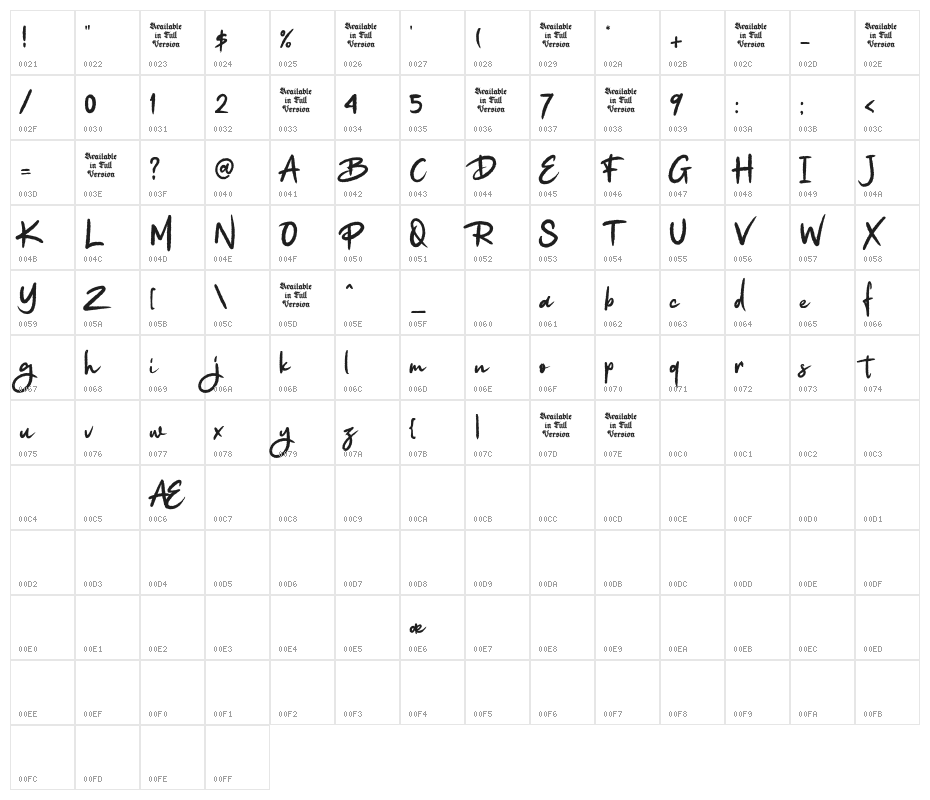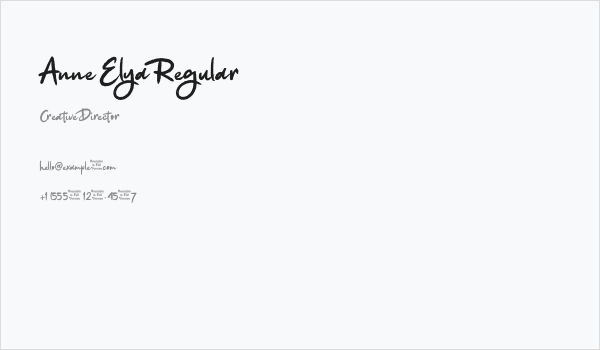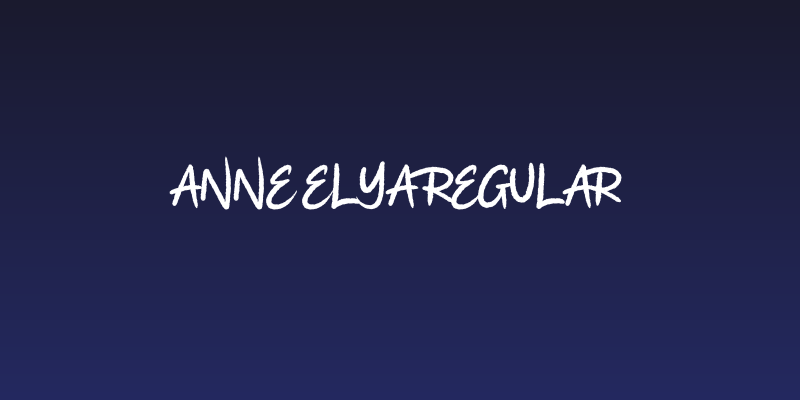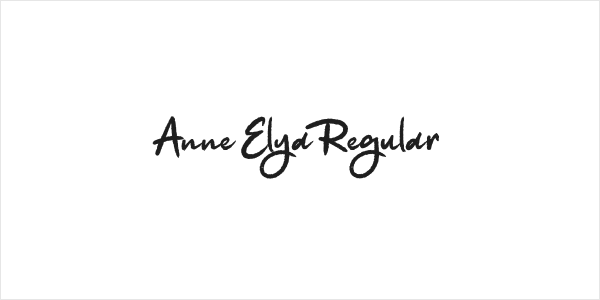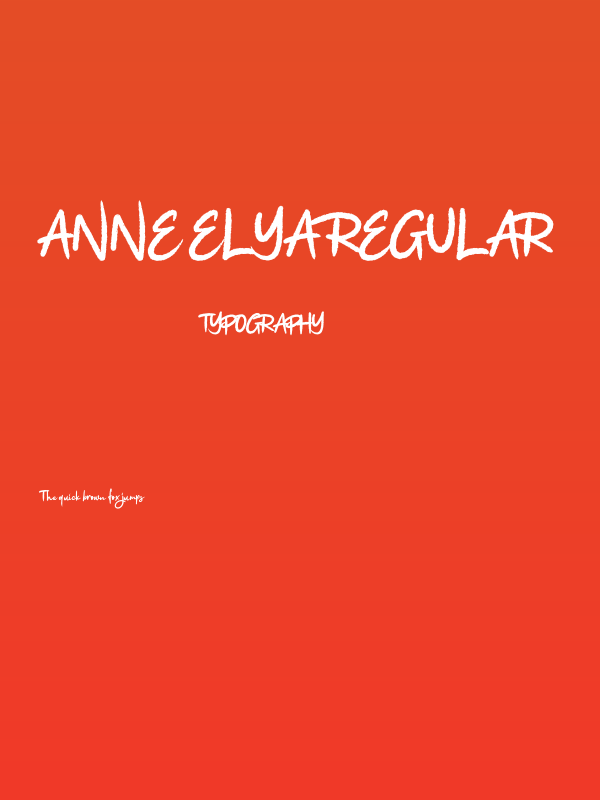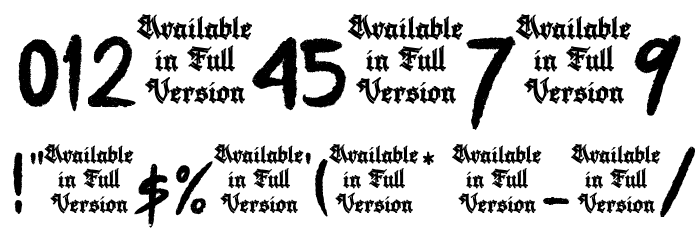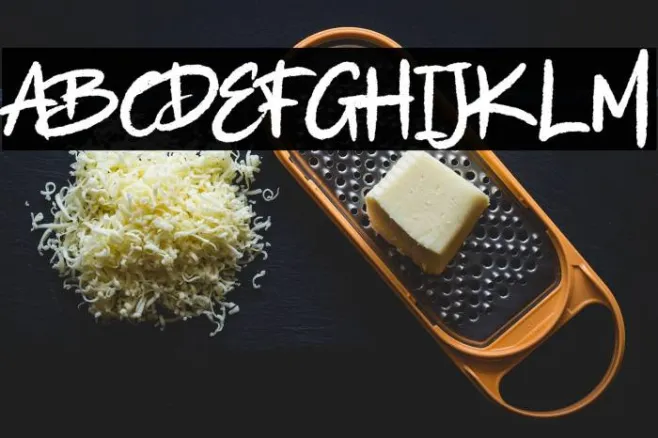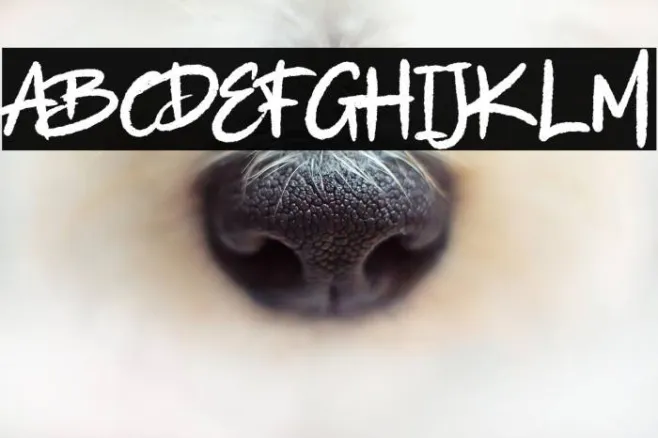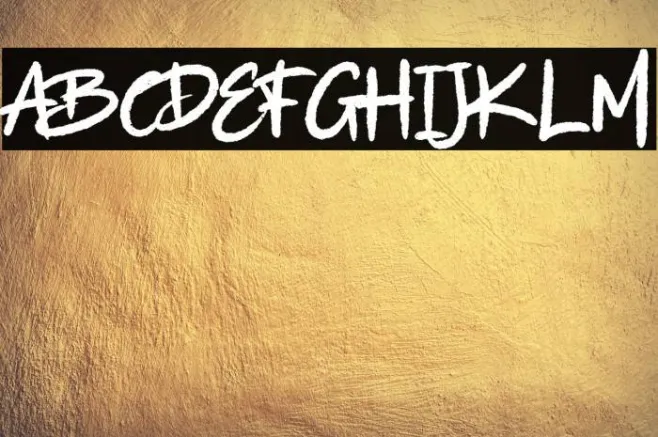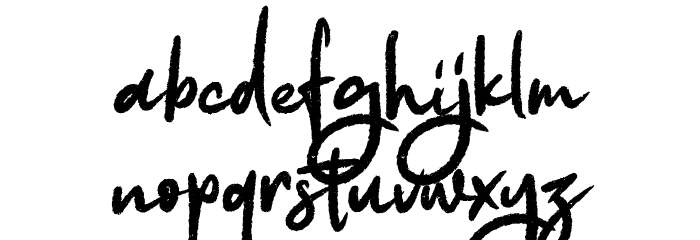
Anne Elya Regular Font
This font features a bold, expressive handwritten style with a dynamic and fluid appearance. The uppercase letters are characterized by their thick strokes and slightly irregular forms, giving them a lively and energetic feel. The lowercase letters maintain a consistent style, with smooth curves and a natural flow that enhances readability. The numbers and special characters are designed in the same bold, handwritten style, ensuring a cohesive look across all elements. This font's unique personality makes it stand out, perfect for projects that require a personal touch or artistic flair.
| Proposed Projects | Ideal for branding, invitations, posters, and any project needing a personal, artistic touch. |